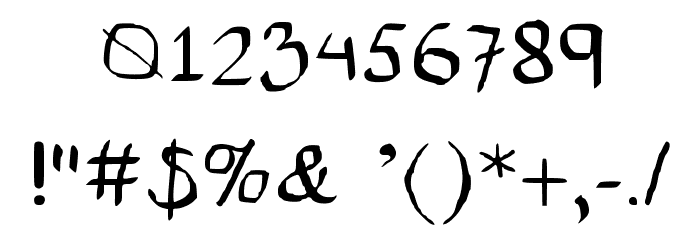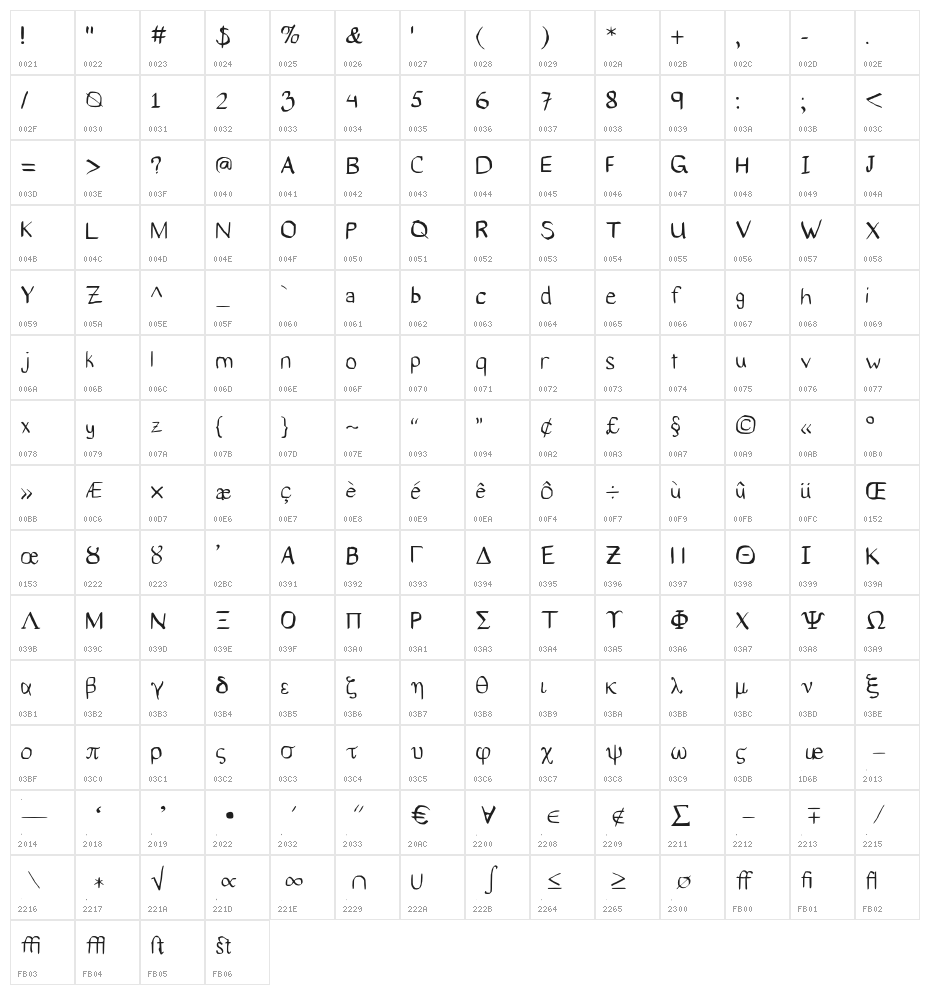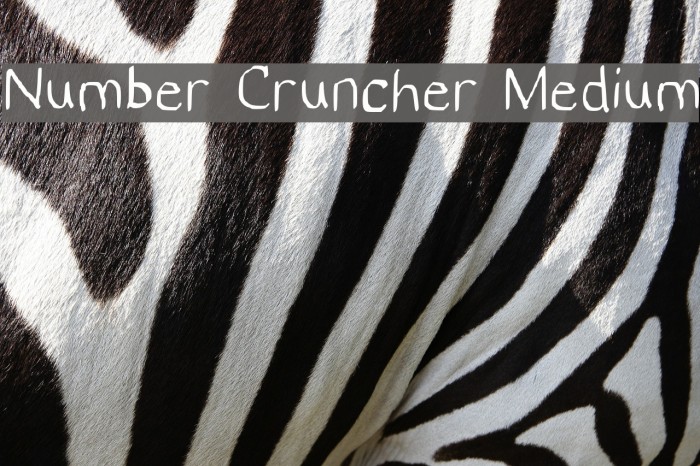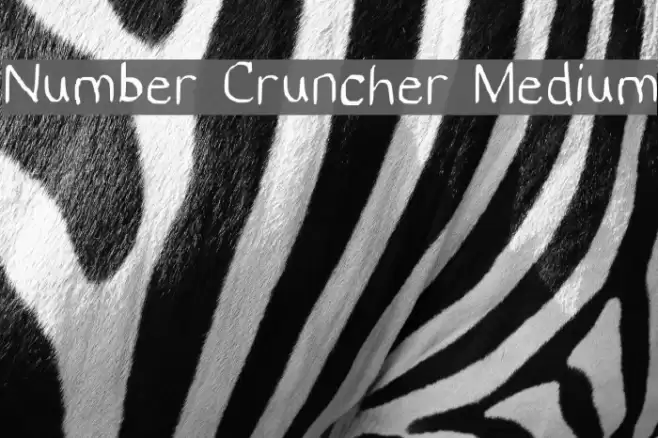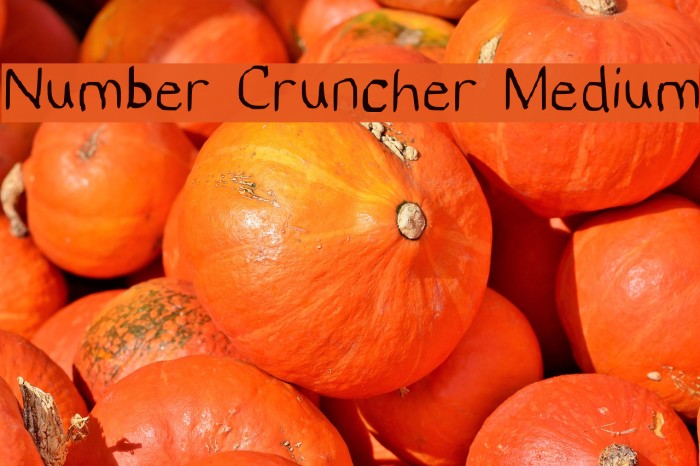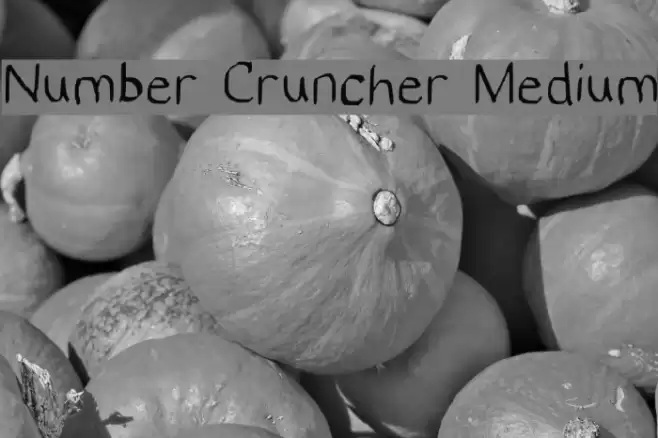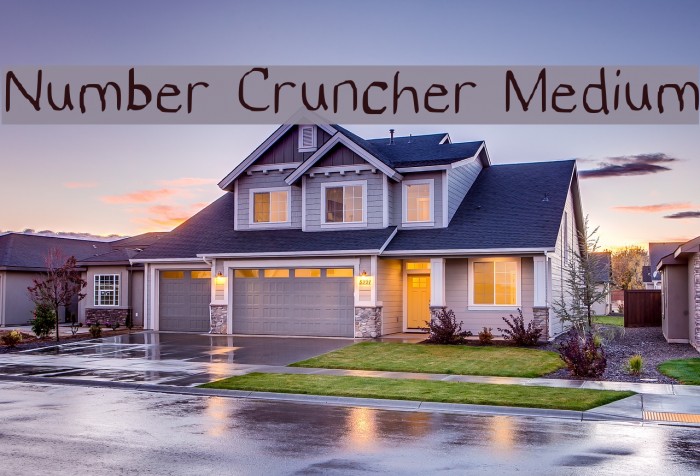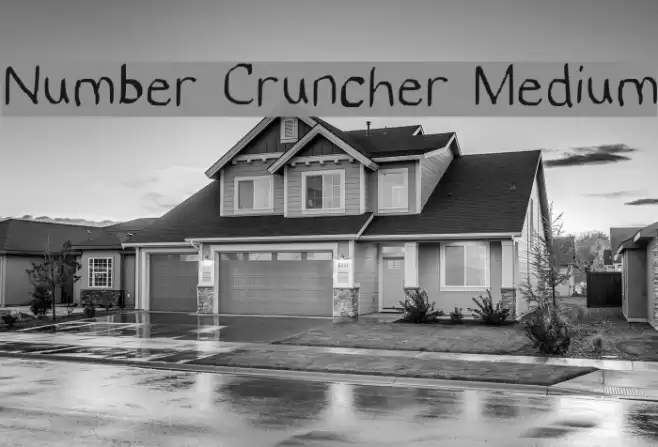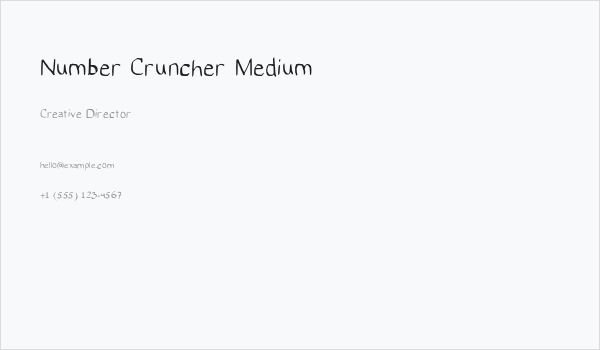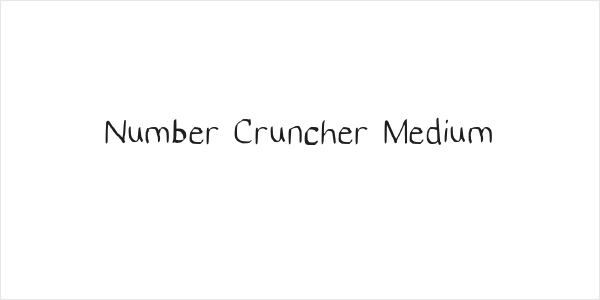
Number Cruncher Medium Font
Number Cruncher Medium Description
This font features a playful and slightly irregular design, giving it a hand-drawn appearance. The characters are bold and have a whimsical quality, with varying stroke thickness that adds to its charm. The uppercase letters are distinct and slightly angular, while the lowercase letters maintain a consistent style with rounded edges. Numbers are clear and easy to read, with a unique flair that matches the overall aesthetic. Special characters are creatively designed, maintaining the font's quirky and artistic feel. This font is perfect for projects that require a fun and informal touch.
| Proposed Projects | Ideal for children's books, creative posters, playful branding, and casual invitations. |